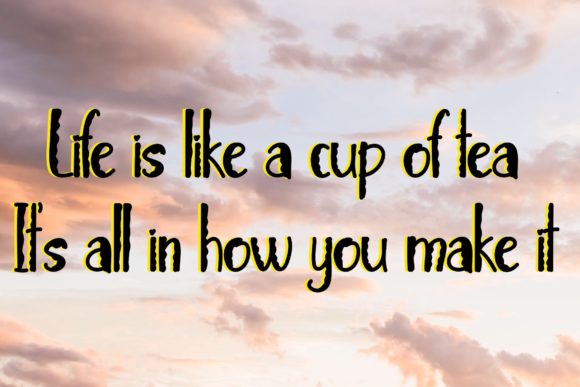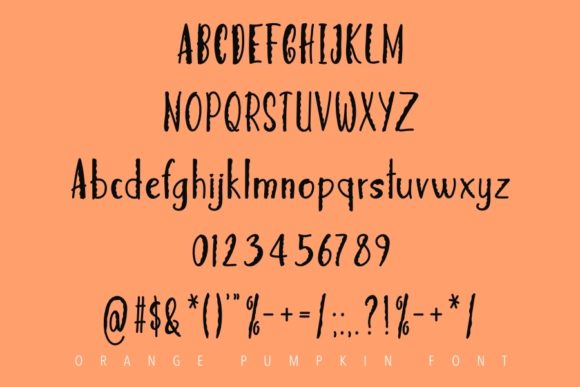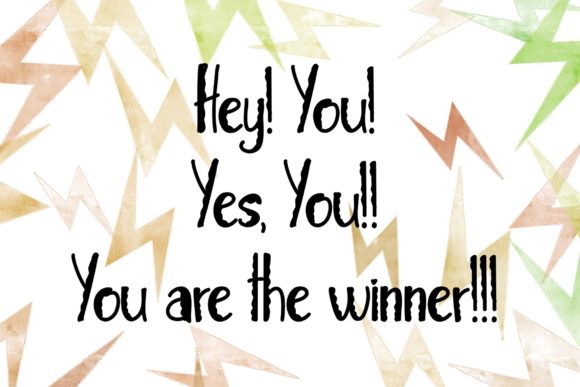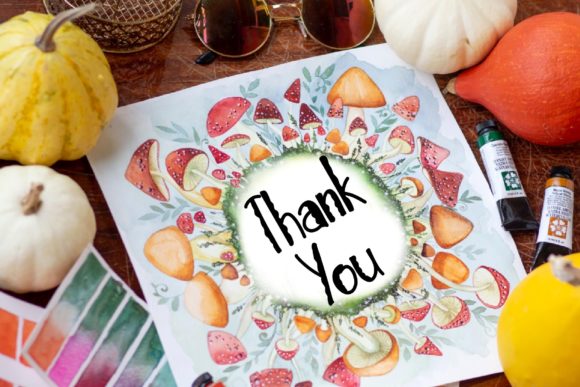
Introduction to Orange Pumpkin Font
As you’re browsing through your favorite design inspiration boards, you stumble upon a unique and quirky font that catches your eye. The Orange Pumpkin Font is one of those design treasures that can elevate your creative project from ordinary to extraordinary. Its spooky and unique style is perfect for adding a touch of Halloween magic to your designs.
Whether you’re a seasoned designer or just starting out, the Orange Pumpkin Font is a valuable resource that can help you create eye-catching logos, stationery, quotes, and book covers. Its versatility and high quality make it an ideal design resource for any creative project. And the best part? You can download it for free, making it an accessible and affordable addition to your design toolkit.
With its transparent background, the Orange Pumpkin Font is perfect for designers who want to add a pop of color and personality to their designs without the hassle of complicated editing. So, get ready to spice up your designs with the Orange Pumpkin Font and make your creative project stand out from the crowd.
Key Features of Orange Pumpkin Font
- High-quality, hand-drawn design suitable for creative projects and personal use.
- Comes with a transparent background, allowing for easy integration into various design elements.
- Features a unique, whimsical style that can add a touch of warmth and personality to any design.
- Has a large character set, making it suitable for a variety of creative projects, from logos to typography-based art.
Honest Review: Orange Pumpkin Font
As a designer, I’m always on the lookout for unique and high-quality design resources to elevate my creative projects. Recently, I stumbled upon the Orange Pumpkin Font, and I must say it’s a delightful addition to my collection.
One of the standout features of this font is its playful and whimsical design. The Orange Pumpkin Font is perfect for those who want to add a pop of color and fun to their projects. The font is available for free download, making it a fantastic resource for designers on a budget.
- ✨ Unique and creative design that adds a personal touch to projects
- ✨ High-quality font that’s perfect for printing and digital use
- ✨ Transparent background, making it easy to use with any design
However, I do have to mention a few limitations:
- ⚠️ Limited character set, which may not be suitable for extensive text-based projects
- ⚠️ Font may not be suitable for professional or corporate projects, due to its playful nature
Overall, the Orange Pumpkin Font is a fantastic design resource that’s perfect for creative projects and those who want to add a bit of fun and personality to their work. While it has some limitations, I highly recommend it for designers who want to add a unique touch to their designs.
The Orange Pumpkin Font is perfect for fall-themed designs, such as Halloween invitations, pumpkin patches, or autumnal landscapes. It’s also great for adding a touch of whimsy to your creative project, making it a popular design resource among designers.